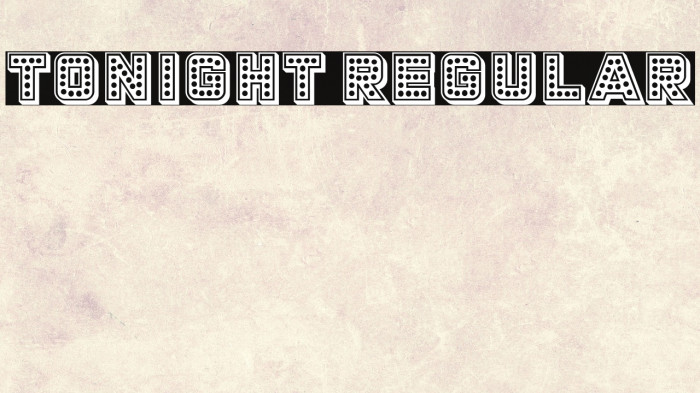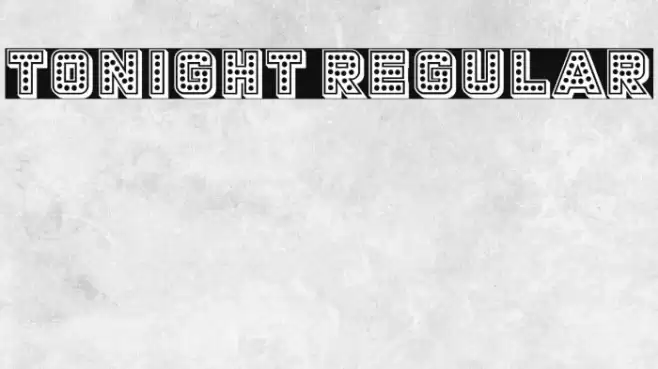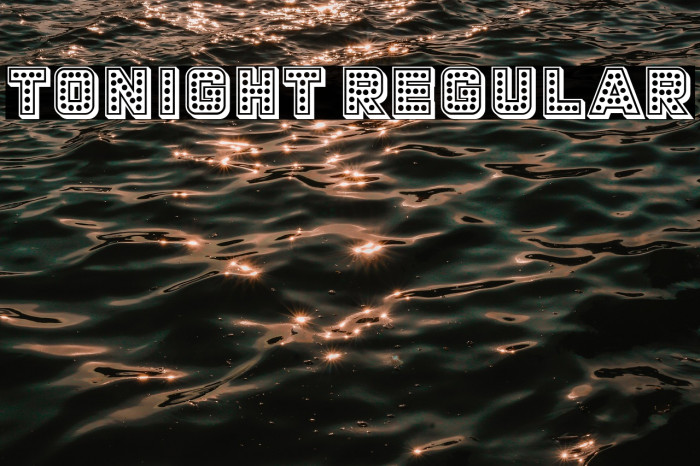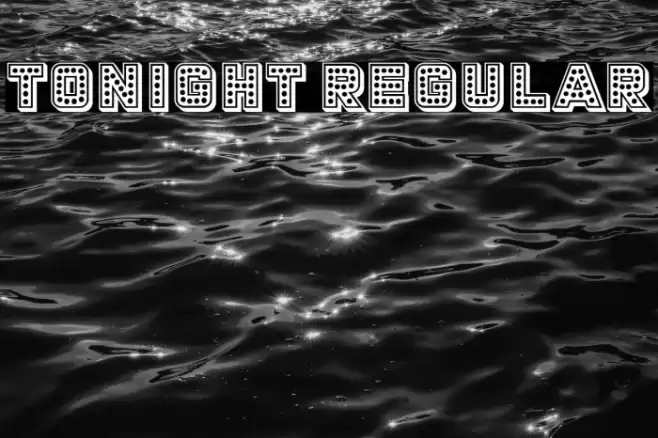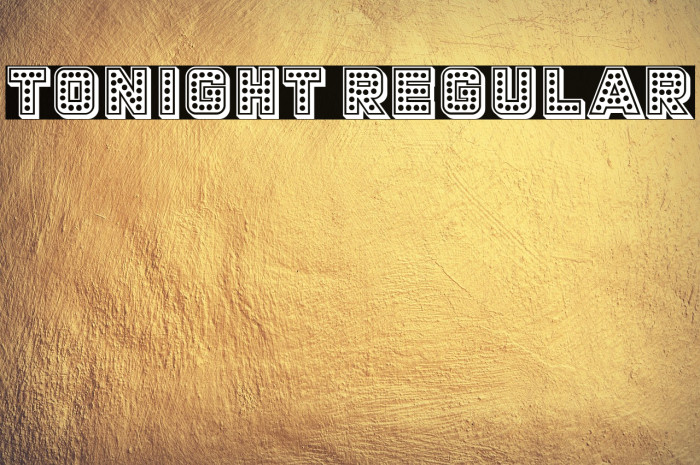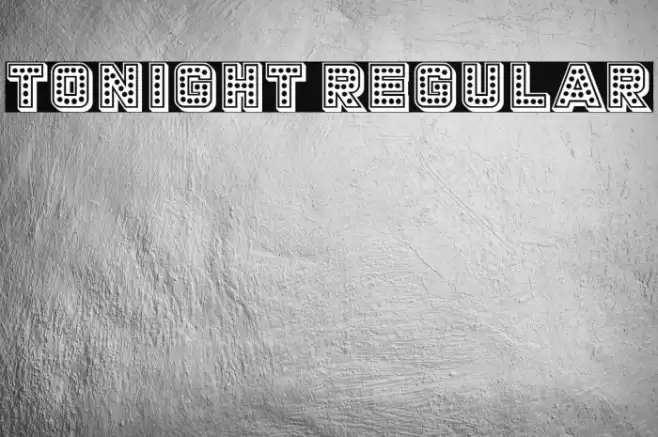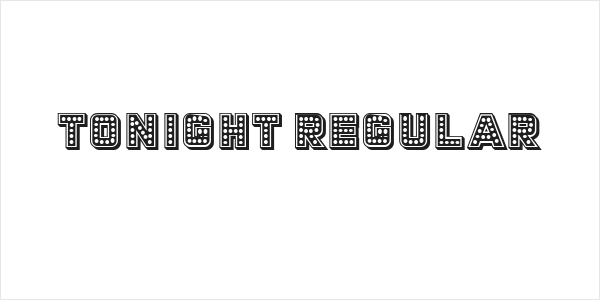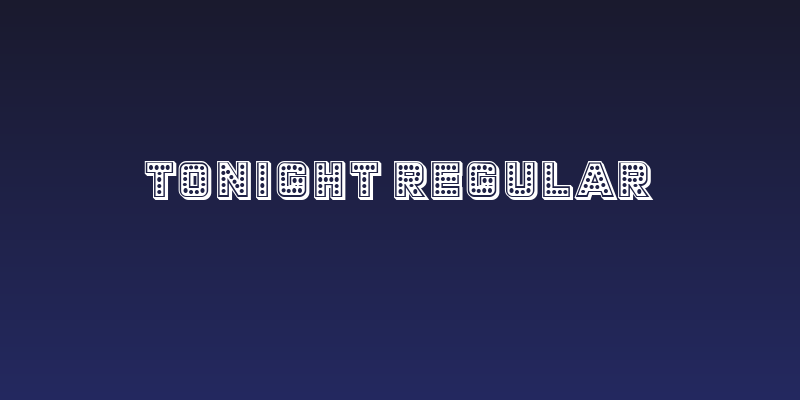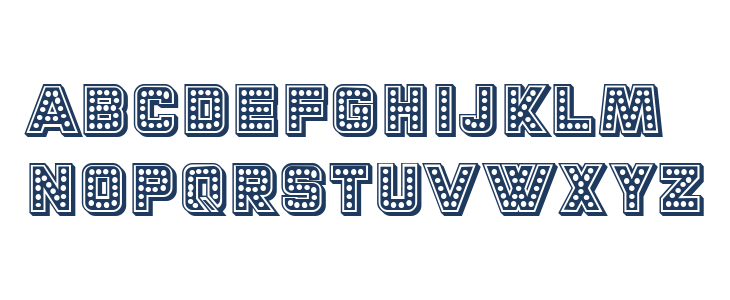
Tonight Regular Font
Tonight Regular Description
This font features a bold, decorative style reminiscent of vintage marquee lights. Each character is outlined with a thick black border and filled with a series of evenly spaced dots, mimicking the appearance of illuminated bulbs. The uppercase letters are uniform in height and width, creating a strong, cohesive look. This design evokes a sense of nostalgia and theatrical flair, making it ideal for capturing attention. The font's playful yet structured appearance makes it suitable for a variety of creative applications, from event posters to branding materials that require a touch of retro charm.
| Proposed Projects | Ideal for event posters, theater signage, retro branding, and any project needing a vintage, eye-catching aesthetic. |